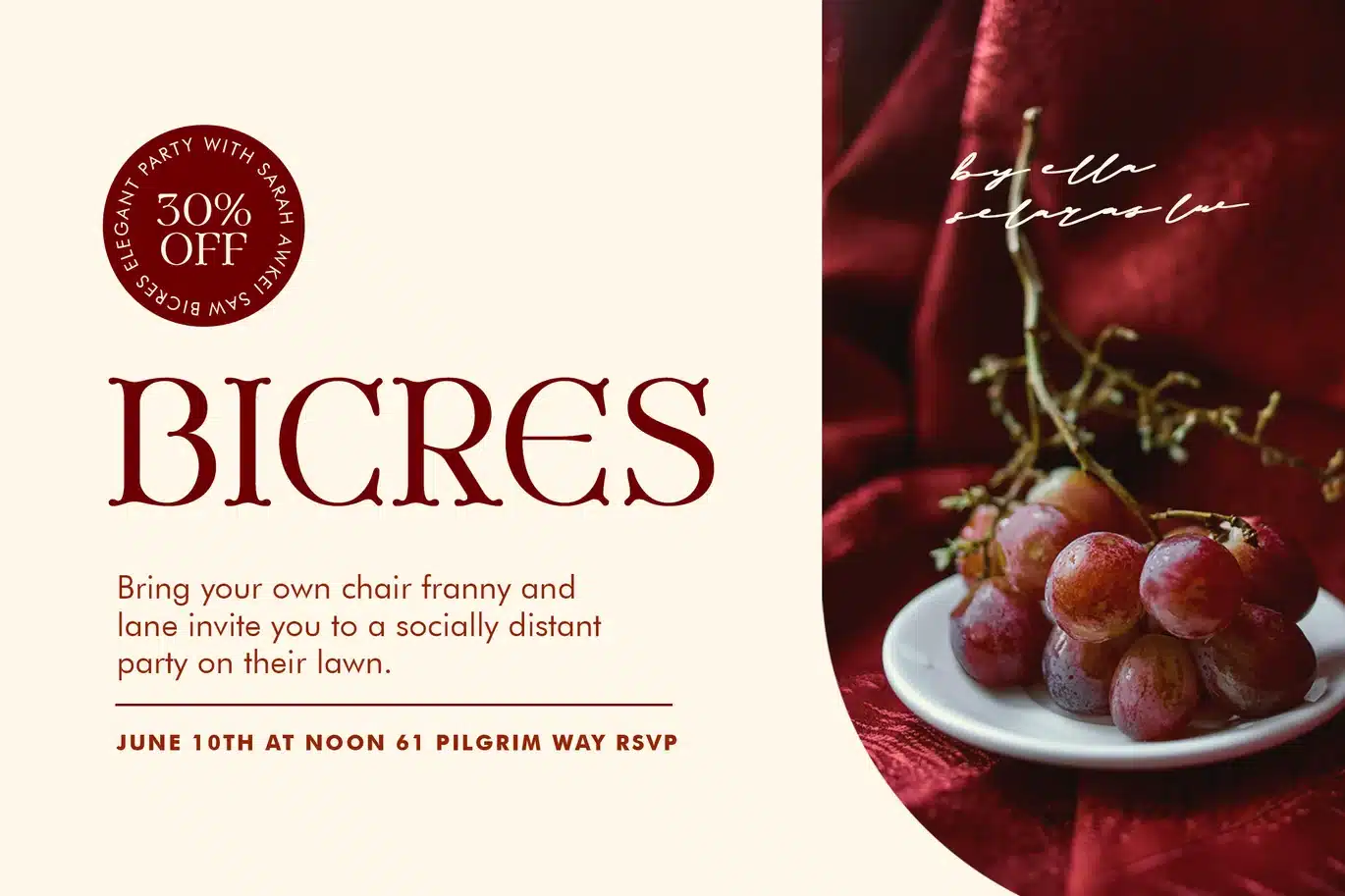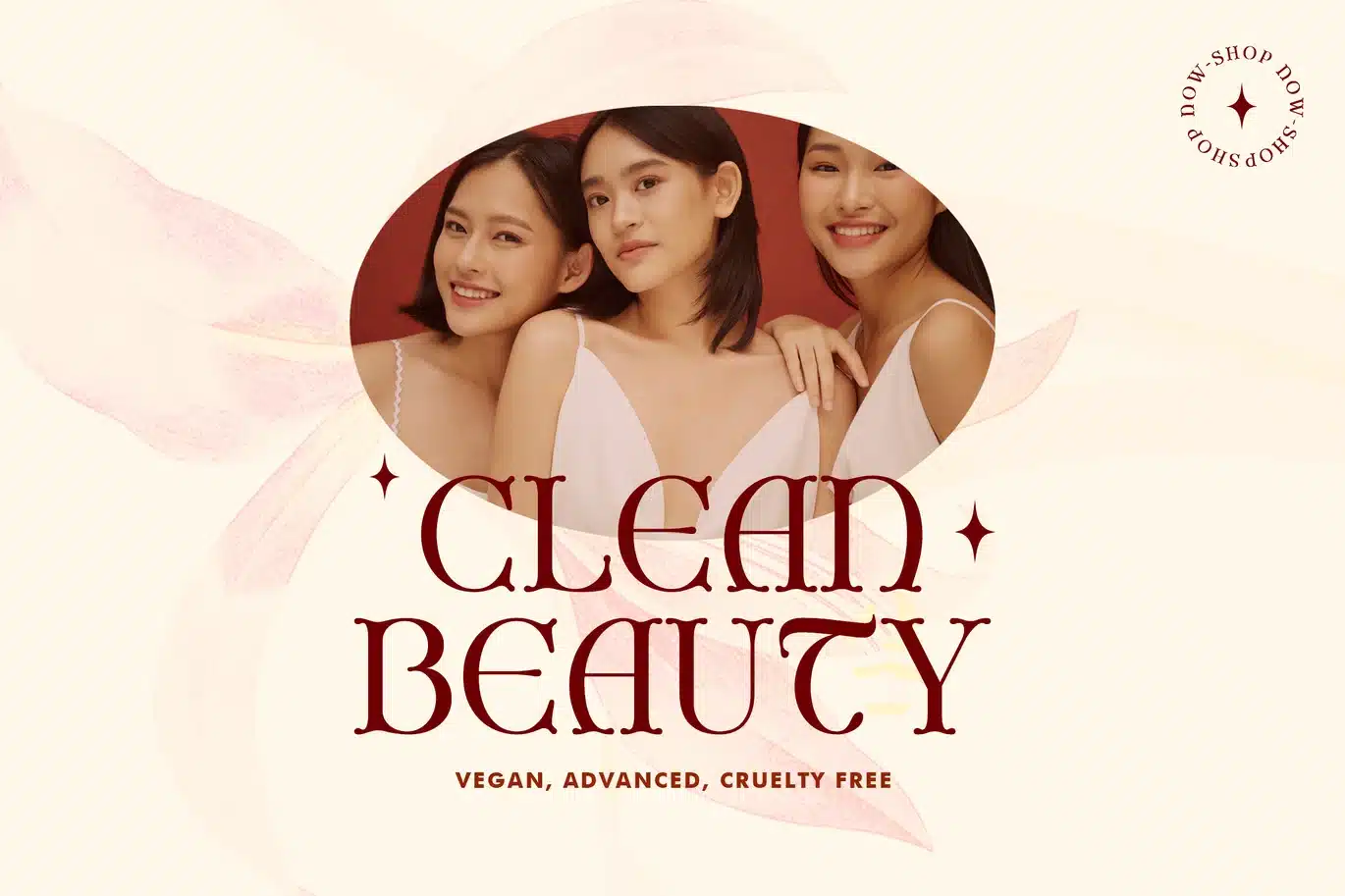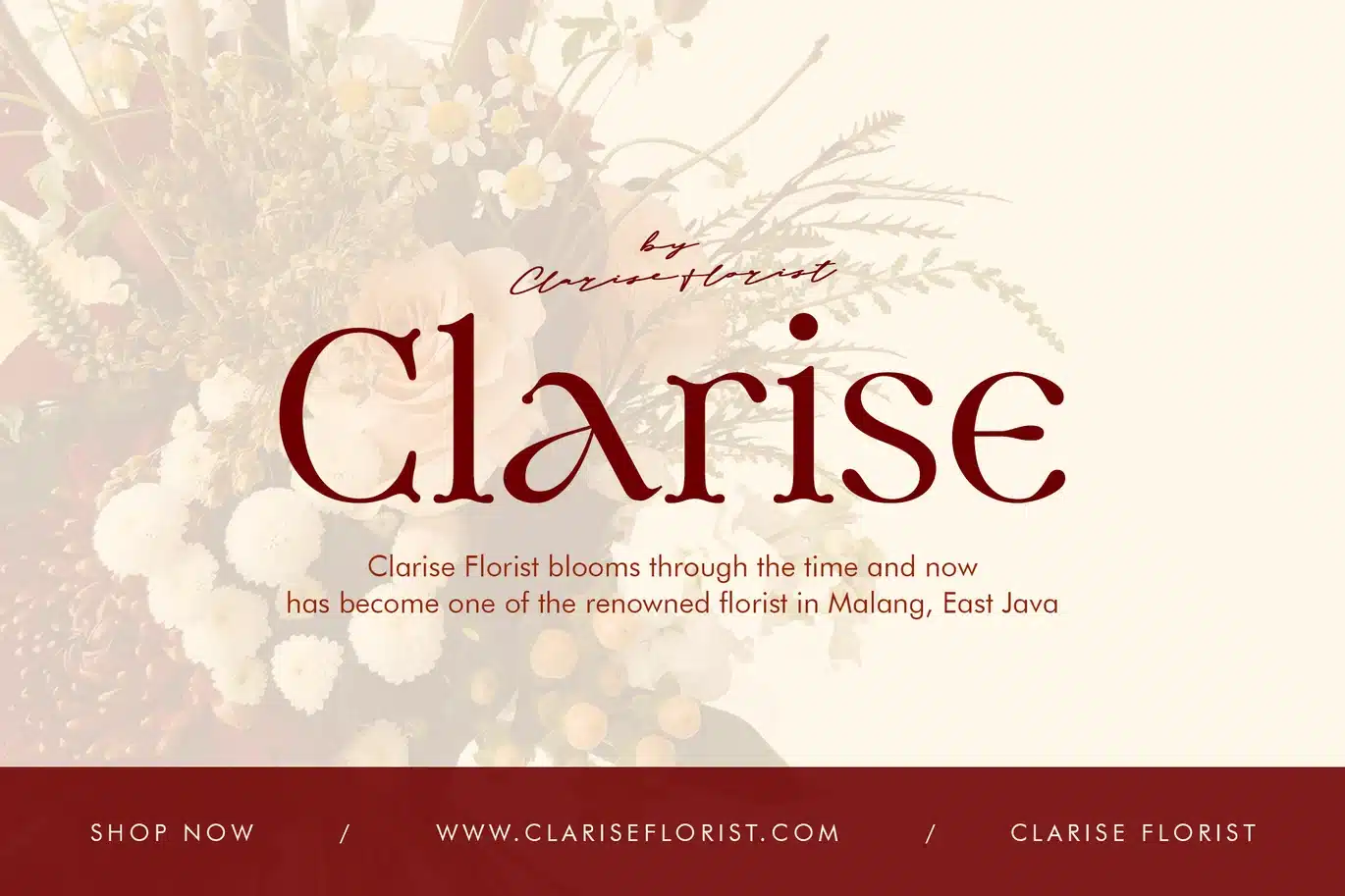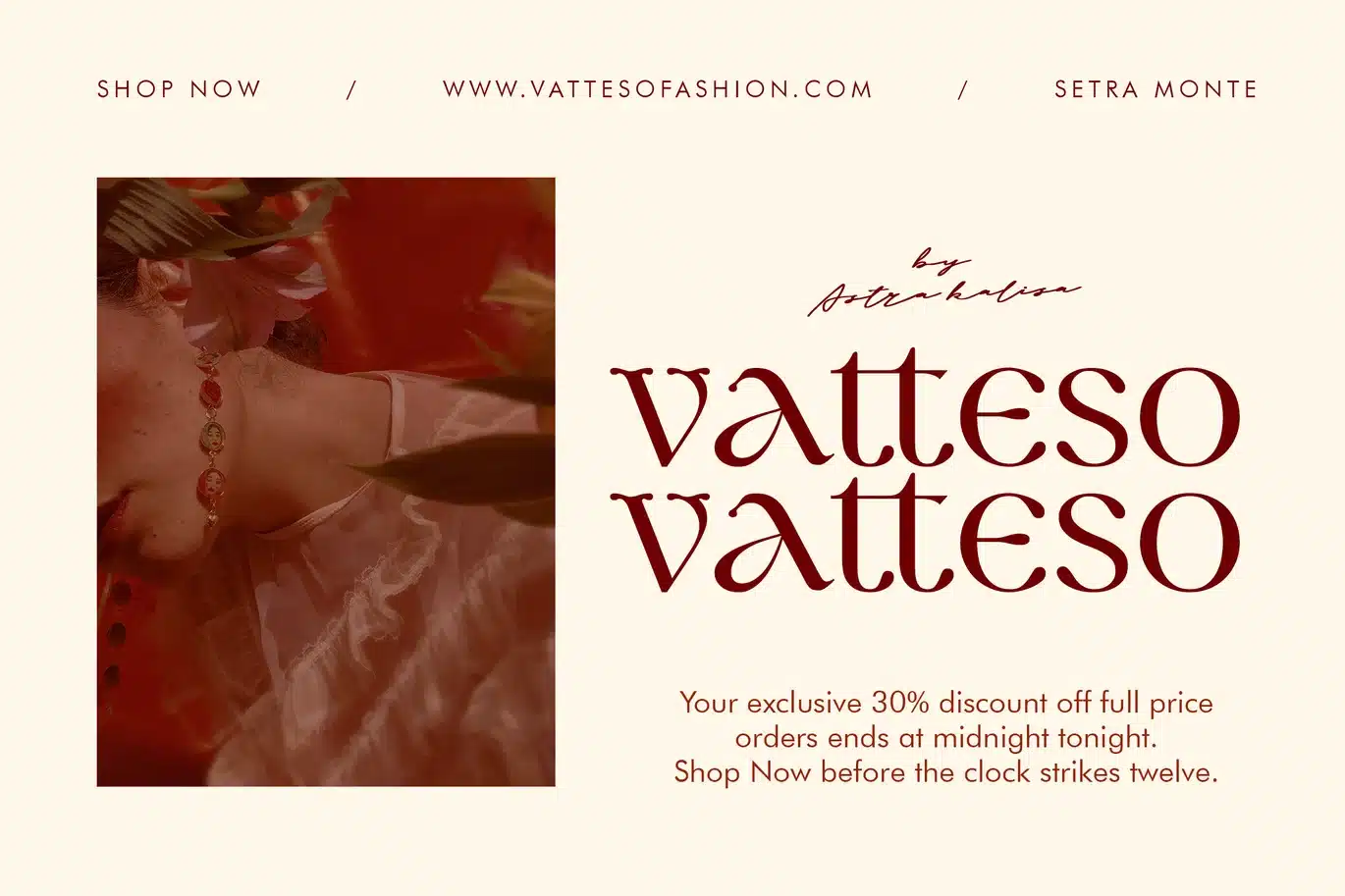
Ovatine – Classic Vintage Elegant Beauty Serif Font
Ovatine - Classic Vintage Elegant Beauty Serif - Aesthetic Romantic Wedding Font
Ovatine Serif comes with some alternates and ligatures, so you can combine it to make a perfect typography design. It is perfect for your up coming projects. Such as luxury logo and branding, classy editorial design, woman magazine, cosmetic brand, fashion promotional, art gallery branding, museum, historical of architectural, boutique branding, stationery design, blog design, modern advertising design, card invitation, art quote, home decor, book/cover title, special events and any more.